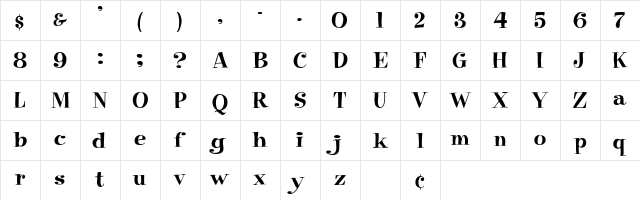
EppingerSSK Regular Font Preview
EppingerSSK Regular
Design Context for EppingerSSK Typeface
EppingerSSK takes a measured approach to typography — its balanced proportions and neutral character make it a reliable workhorse for both digital and print work.